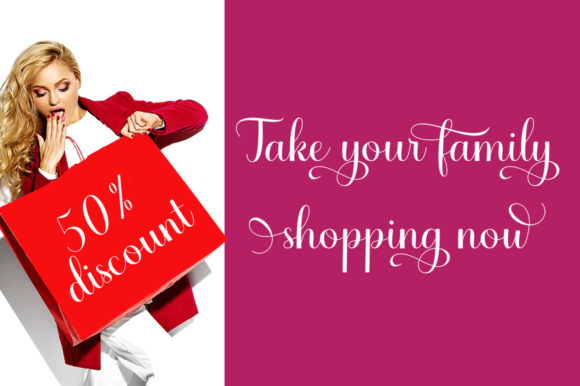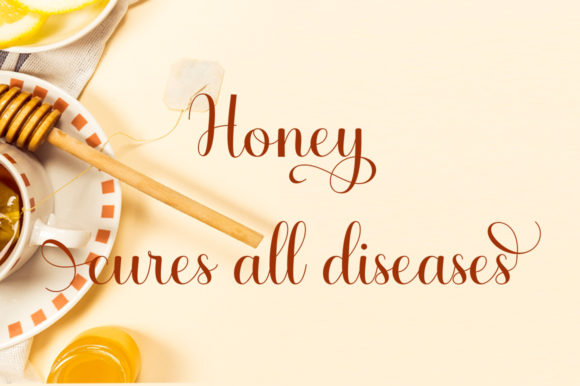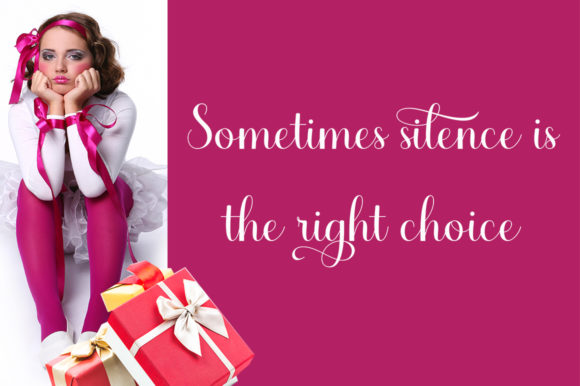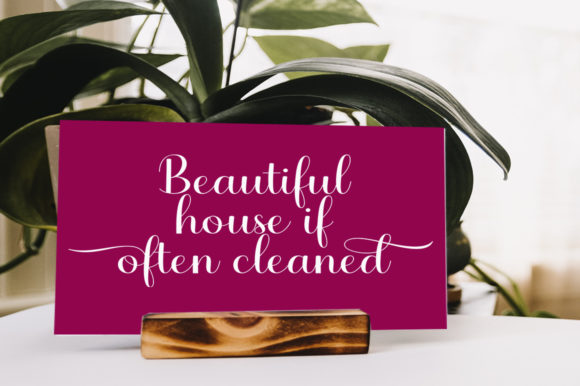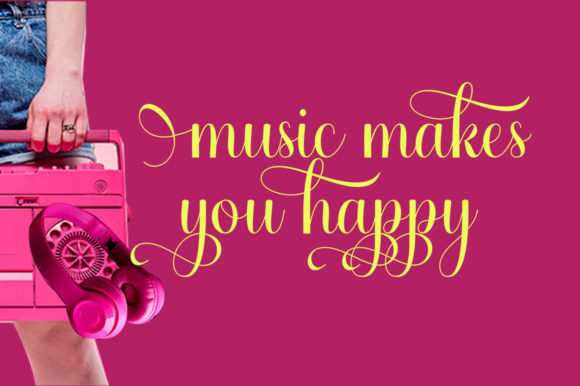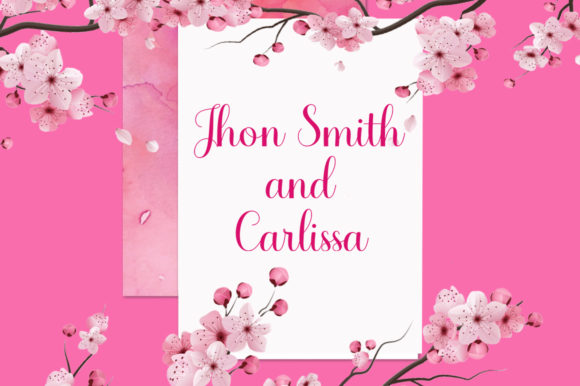
Discover the Elegance of Haydena Font: A Modern Script Font for Creative Projects
Are you looking for a font that exudes sophistication and modernity, yet pays homage to the classic art of calligraphy? Look no further than Haydena Font, a stunning script font that is sure to captivate your audience. In this article, we’ll dive into the features and benefits of Haydena Font, and explore how you can use it to elevate your creative projects.
A Font that Feels Sophisticated and Modern
Haydena Font is a masterfully crafted script font that boasts a sophisticated and modern feel. Its elegant lines, flowing curves, and precise lettering make it perfect for a wide range of applications, from wedding invitations and stationery to social media posts and greeting cards. Whether you’re a designer, crafter, or simply a DIY enthusiast, Haydena Font is sure to inspire your creativity.
A Stylish Homage to Classic Calligraphy
Haydena Font is more than just a modern script font – it’s a stylish homage to the art of classic calligraphy. With its authentic feel and attention to detail, Haydena Font brings a touch of timeless elegance to any project. Whether you’re looking to create a vintage-inspired wedding invitation or a modern social media post, Haydena Font is the perfect choice.
PUA Encoded for Easy Access to Glyphs and Swashes
One of the standout features of Haydena Font is its PUA (Private Use Area) encoding. This means that you can access all of the font’s cute glyphs and swashes with ease, allowing you to add an extra touch of personality to your projects. With Haydena Font, you can create stunning visual effects, from intricate borders to elegant flourishes.
A Wealth of Special Features
Haydena Font is more than just a beautiful script font – it’s also packed with special features that make it incredibly versatile. Some of the font’s key features include:
- Alternate Glyphs: Haydena Font features a range of alternate glyphs, allowing you to mix and match different letterforms to create a unique look.
- Ligatures: The font also includes ligatures, which enable you to connect letters and create a flowing, cursive effect.
- Swashes: With Haydena Font’s swashes, you can add a touch of elegance to your projects, from simple flourishes to intricate borders.
Perfect for a Wide Range of Creative Projects
Haydena Font is incredibly versatile, making it perfect for a wide range of creative projects. Here are just a few ideas to get you started:
- Wedding Invitations: Create stunning wedding invitations that set the tone for a beautiful and elegant celebration.
- Stationery: Use Haydena Font to create beautiful stationery, from letterheads to greeting cards.
- Social Media Posts: Add a touch of elegance to your social media posts, from Instagram stories to Facebook updates.
- Greeting Cards: Create cute and personalized greeting cards for any occasion, from birthdays to holidays.
In conclusion, Haydena Font is a stunning script font that is sure to captivate your audience. With its sophisticated and modern feel, authentic calligraphy-inspired design, and wealth of special features, Haydena Font is the perfect choice for any creative project. Whether you’re a designer, crafter, or simply a DIY enthusiast, Haydena Font is sure to inspire your creativity and help you create beautiful, professional-looking projects.